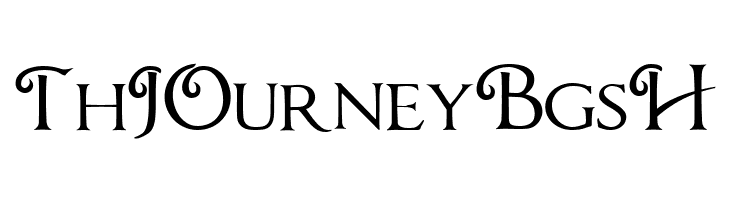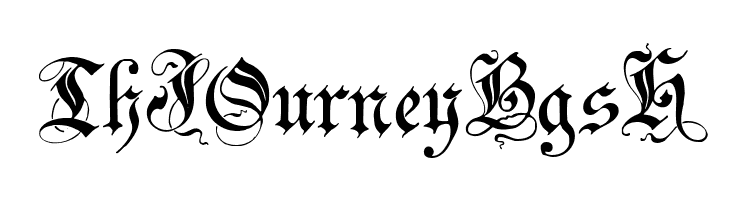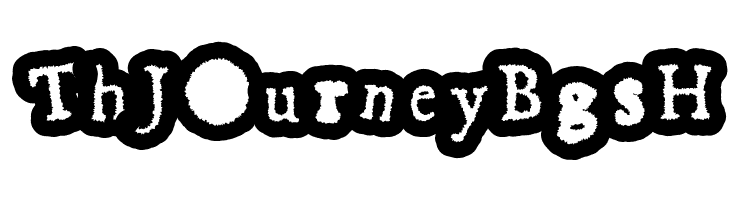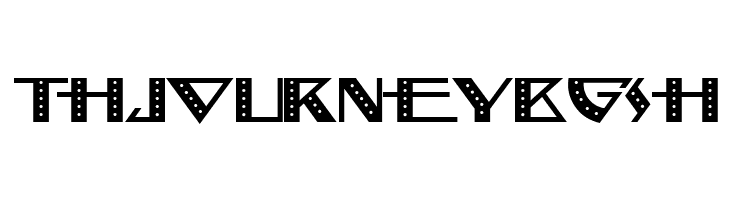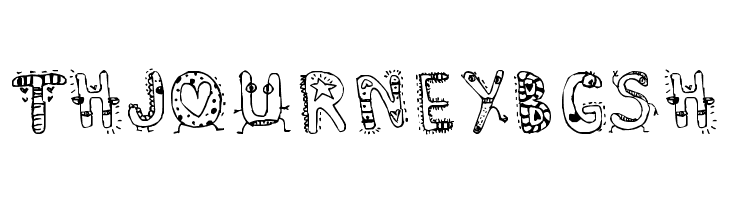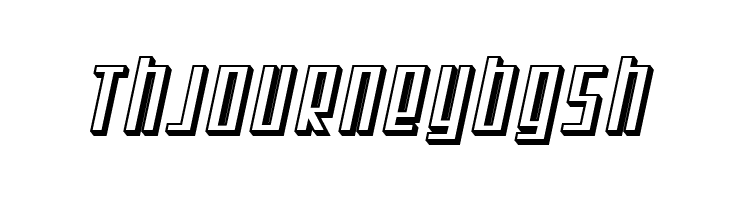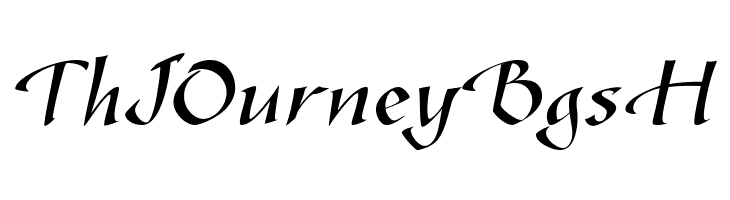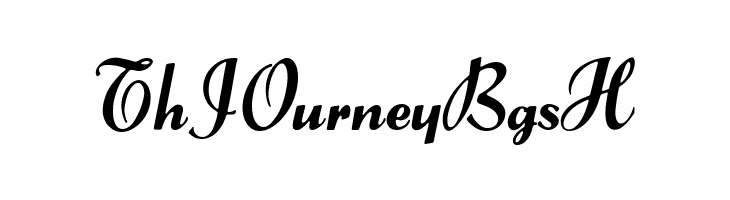
An elegant and decorative serif font with intricate curves and flourishes.
An ornate and decorative font with a classic calligraphic style.
( Fonts by Daniel Gauthier )
A playful, bold font with bubbly outlines and textured interiors.
A bold, geometric font with modern, decorative elements and dot patterns.
A playful, alien-themed font with quirky patterns and textures.
A bold, geometric oblique font with a shaded 3D effect.
( Fonts by Casady & Greene )
A sophisticated, calligraphic font with elegant, flowing strokes and sharp serifs.
An elegant script font with flowing lines and classic appeal.